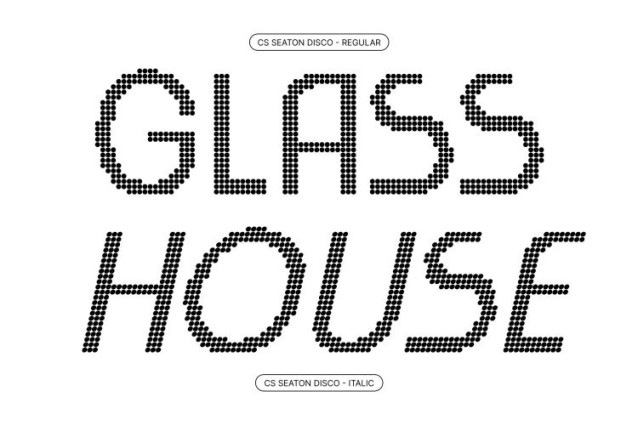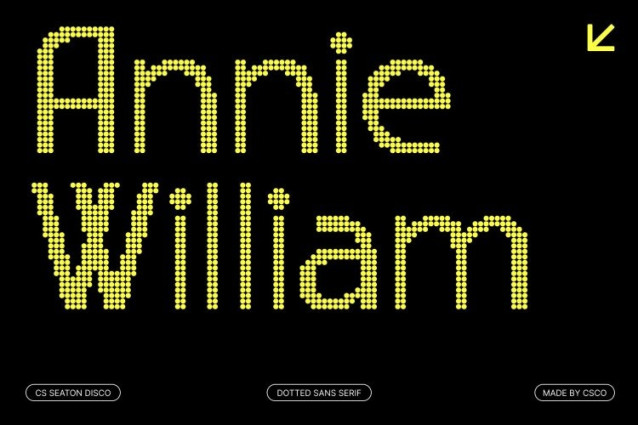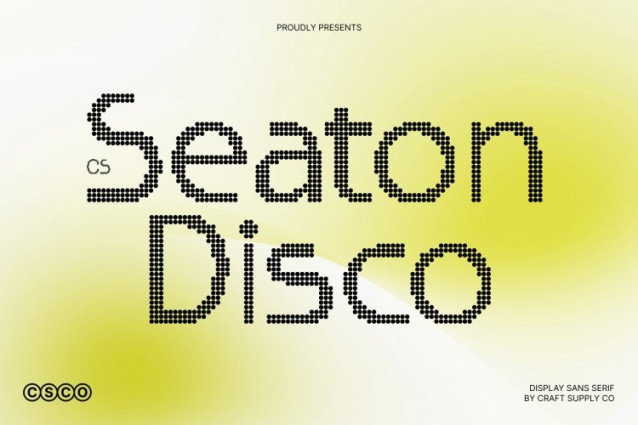
CS Seaton Disco Font
CS Seaton Disco Font – This font reimagines the clean contemporary sans serif as a dot-style display font. Each letter is constructed from precise circular dots, preserving the sharp geometric structure while adding playful texture. The dot-based design amplifies the techno-inspired aesthetic, giving the font a lively, disco-like energy.
Sleek, Futuristic Character
The dotted forms maintain this font’s modern and minimalist identity, while softening the edges to introduce visual interest and approachability. The geometric rhythm of the dots conveys movement and innovation, perfect for projects that need a dynamic, forward-looking style.
Ideal for High-Tech and Digital Designs
This font excels in posters, digital interfaces, UI/UX layouts, and branding for technology, music, or creative industries. Its bold dot construction ensures readability at large sizes while injecting a cheerful, energetic feel that draws attention.
Versatile for Contemporary Projects
This is perfect for futuristic posters, digital media campaigns, event promotions, and modern brand identities. Paired with vibrant colors or dynamic graphics, the font captures the spirit of innovation, combining professional clarity with a playful disco-inspired twist.